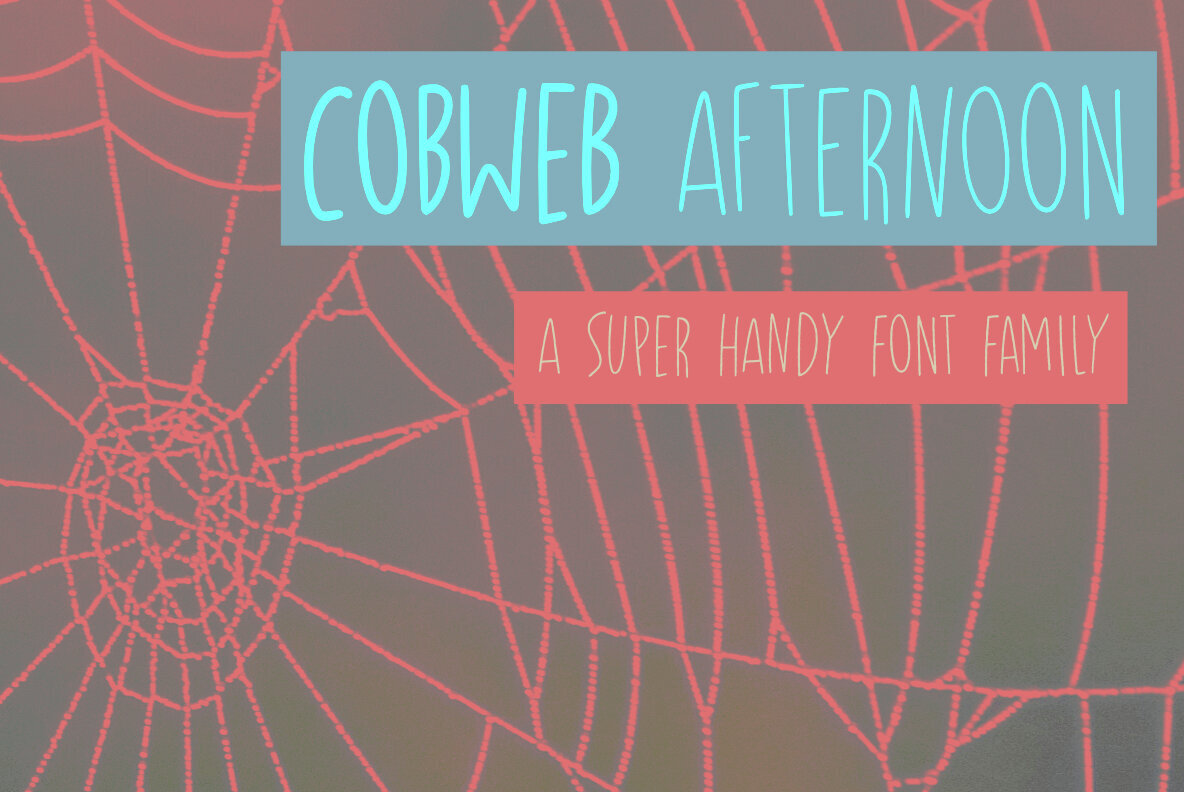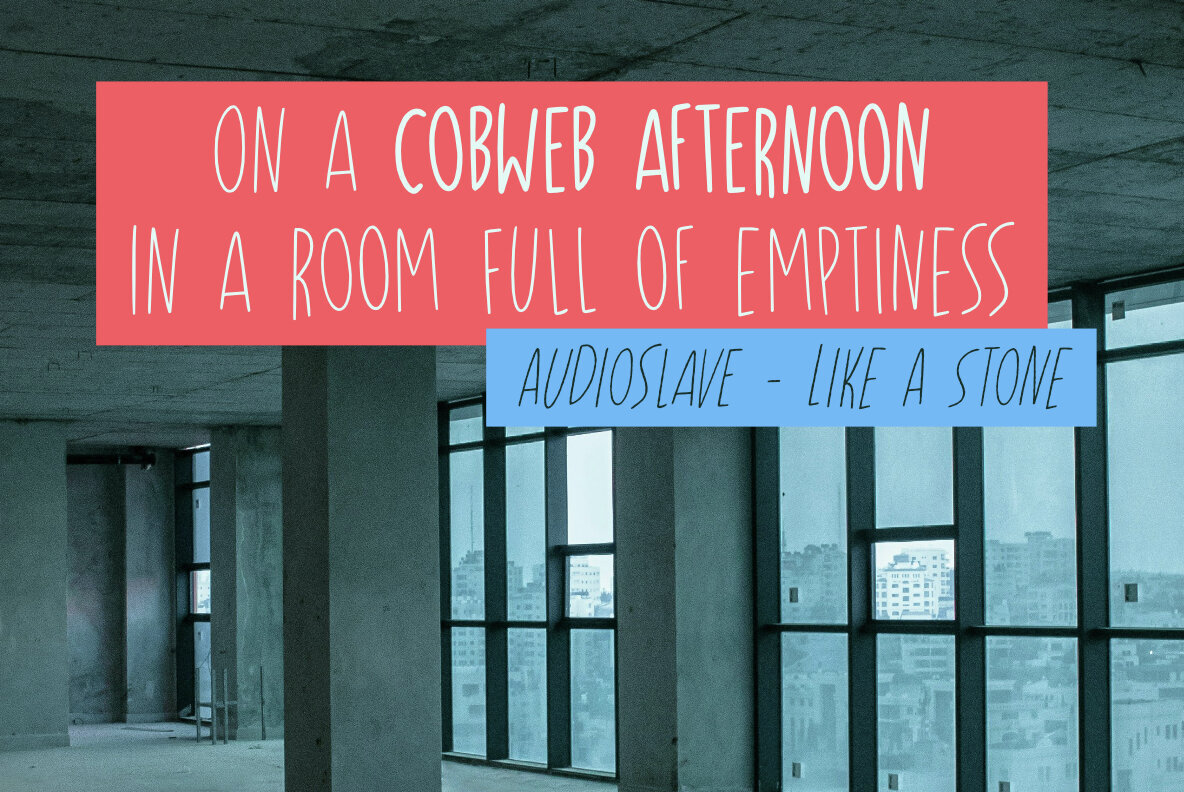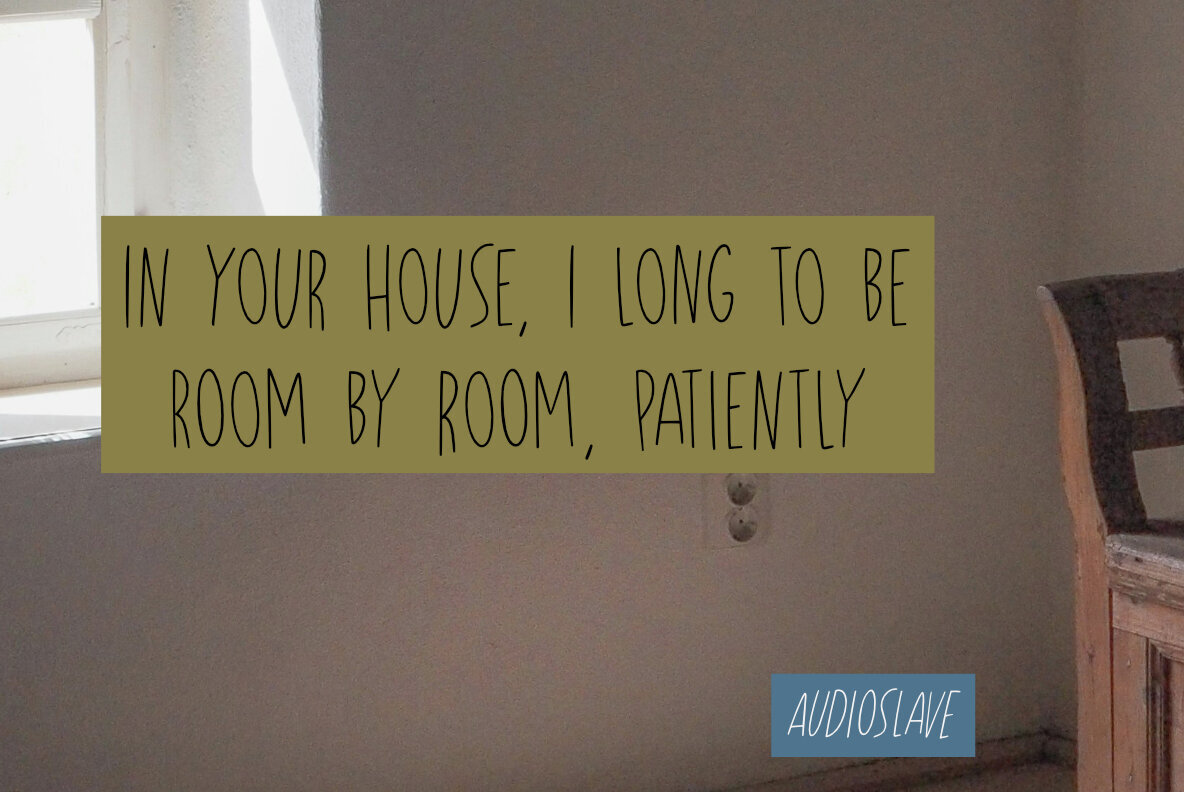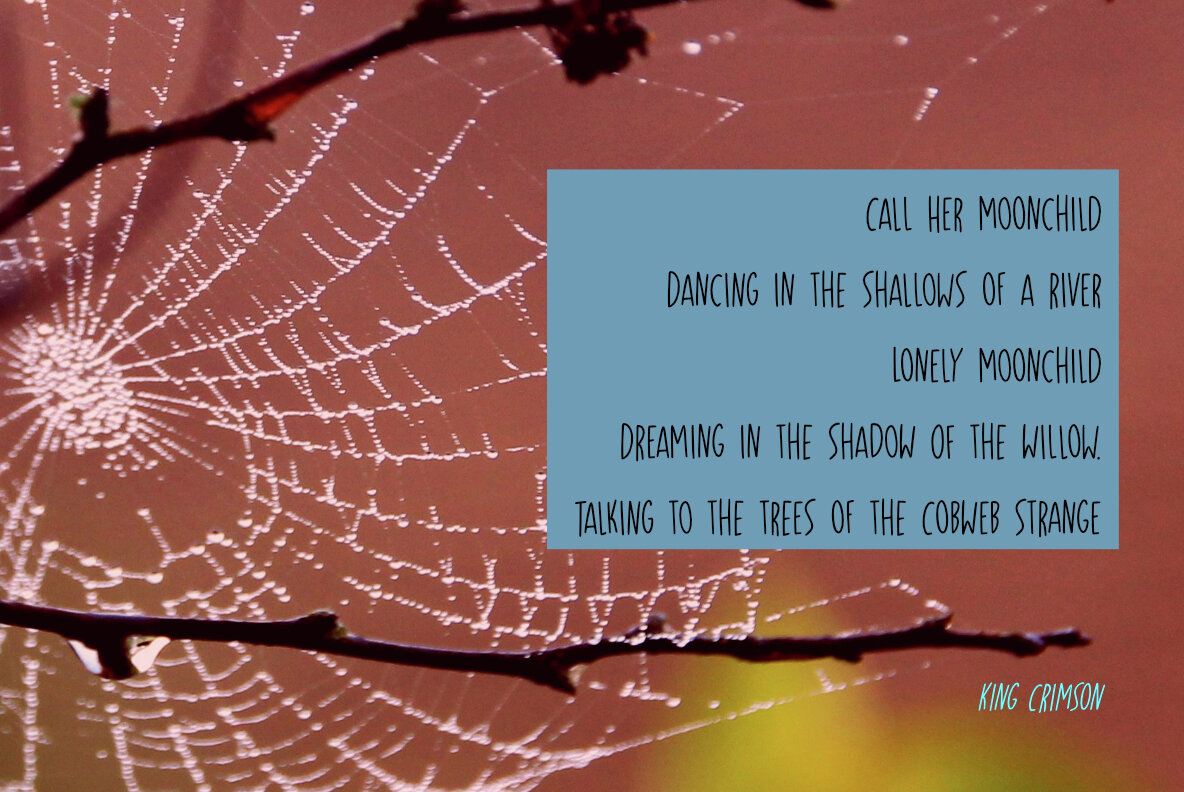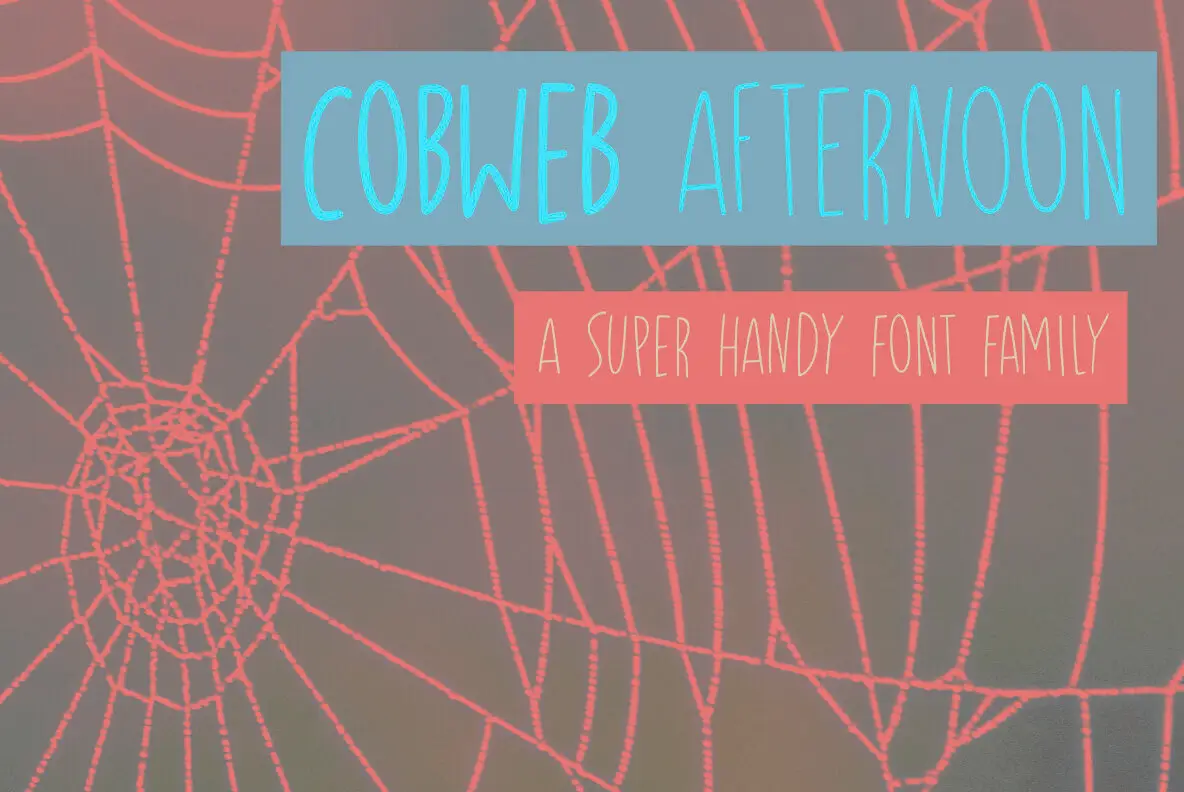
Cobweb Afternoon Font
Cobweb Afternoon offers a versatile approach to type design, inspired by quiet moments and autumnal details. The font family features three distinct weights, each paired with its own italic variant, ensuring a cohesive yet flexible typographic palette for a range of creative projects. Each style in the set is crafted to work seamlessly together, supporting visual consistency across branding materials, editorial layouts, and web interfaces. The collection balances legibility with personality, making it a reliable choice for design-driven assignments.Cobweb Afternoon Font Family